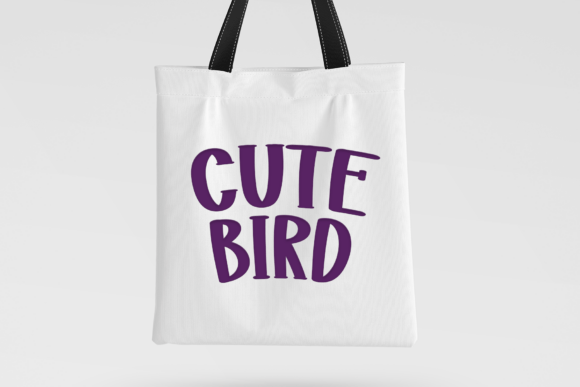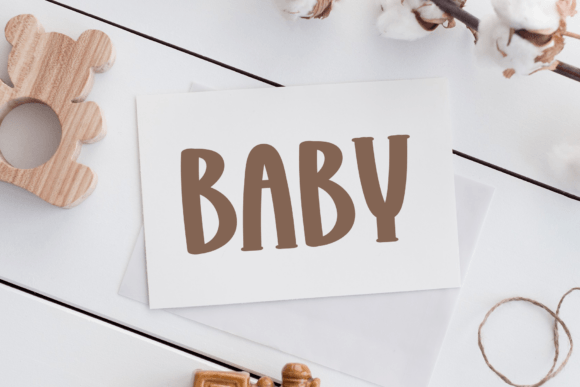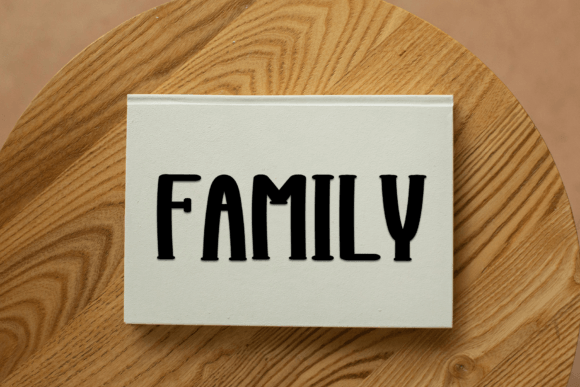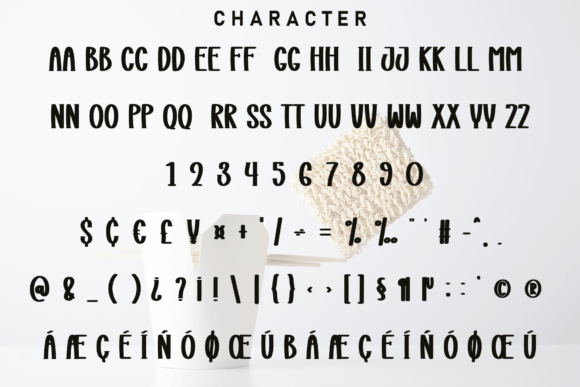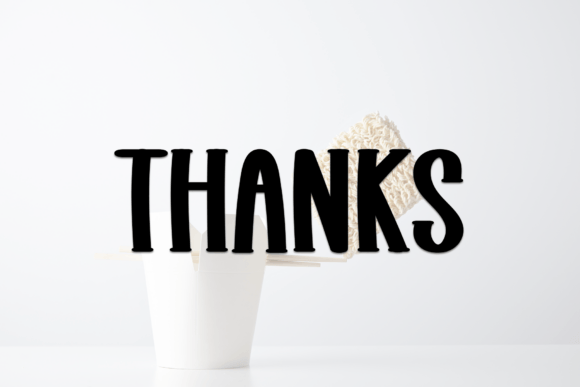
Introduction to Instant Noodles Font
Instant Noodles is a handwritten font that looks like it was drawn with a marker.
Having a relaxed and sporty feel, it is very suitable for branding, logos, wedding supplies, greeting cards, fashion, lookbooks, marketing promotions, and whenever you want your design to look luxurious and elegant but still casual .
Key Features of Instant Noodles Font